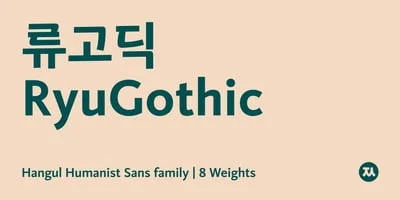
RyuGothic Font
RyuGothic Font is perfect for Japanese restaurant branding, anime convention materials, manga publication designs, martial arts studio signage, modern Tokyo-inspired interfaces, contemporary sushi bar menus, J-pop music promotions, and cutting-edge Japanese technology presentations.
This font is exciting because it embodies the perfect fusion of traditional Japanese aesthetics with contemporary gothic design principles, creating letterforms that honor cultural heritage while embracing modern innovation. The RyuGothic Font captures the essence of dynamic Japanese culture, transforming ordinary text into powerful expressions that balance ancient wisdom with futuristic vision and technological advancement.
The RyuGothic Font family includes Japanese-inspired variations such as Regular, Bold, Light, Medium, Italic, Condensed, Extended, and Samurai versions, providing Japanese culture designers with comprehensive tools to create authentic typography that celebrates both traditional Japanese values and contemporary design excellence across all cultural applications.
Experience Japanese innovation with RyuGothic Font that brings authentic Japanese design philosophy to every modern project. This culturally rich typeface combines traditional Japanese aesthetics with contemporary functionality, making it perfect for Japanese businesses, anime studios, and brands celebrating Japanese culture and technological innovation. The font's balanced character design ensures your message conveys both cultural respect and modern sophistication while maintaining excellent readability across all applications. Whether you're developing Japanese restaurant branding, creating anime-inspired content, or designing materials that honor Japanese heritage, RyuGothic Font delivers the authentic typography that resonates with audiences who appreciate Japanese culture and design excellence. Its versatile design works beautifully across digital and print media while preserving the harmonious balance that makes Japanese communications feel genuinely respectful of tradition while embracing the innovative spirit that defines modern Japanese culture and technological leadership.